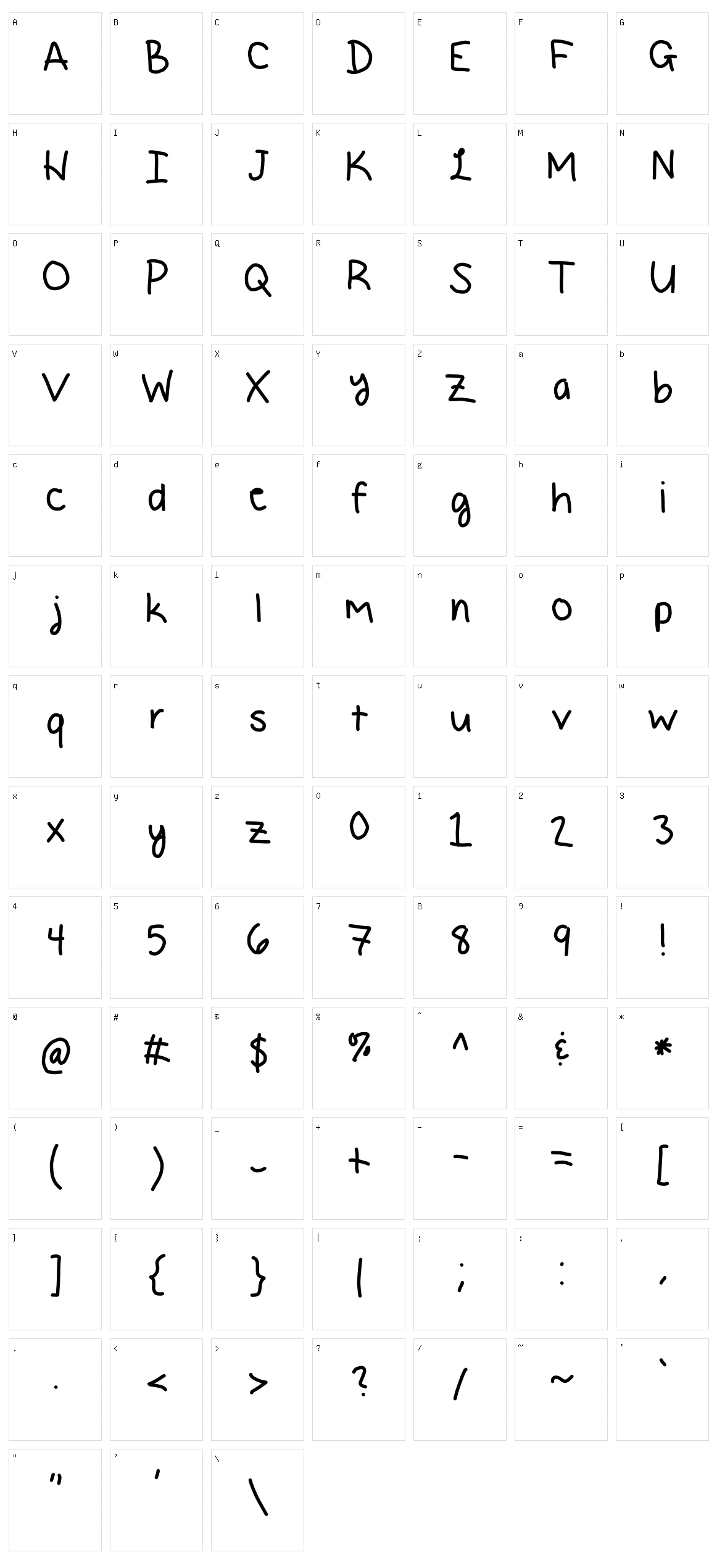
The free font Sugar Lite is carefully designed by Autumn, showcasing a thoughtful balance of creativity and usability and falls under the Script font style. When you download the ZIP file, it contains only 23.08 KB of font files, making it lightweight and quick to download. Please review the license details below to understand permitted usage and distribution rights. If license information is not available, we recommend using this font for personal projects only or contacting the author directly for commercial usage permissions.